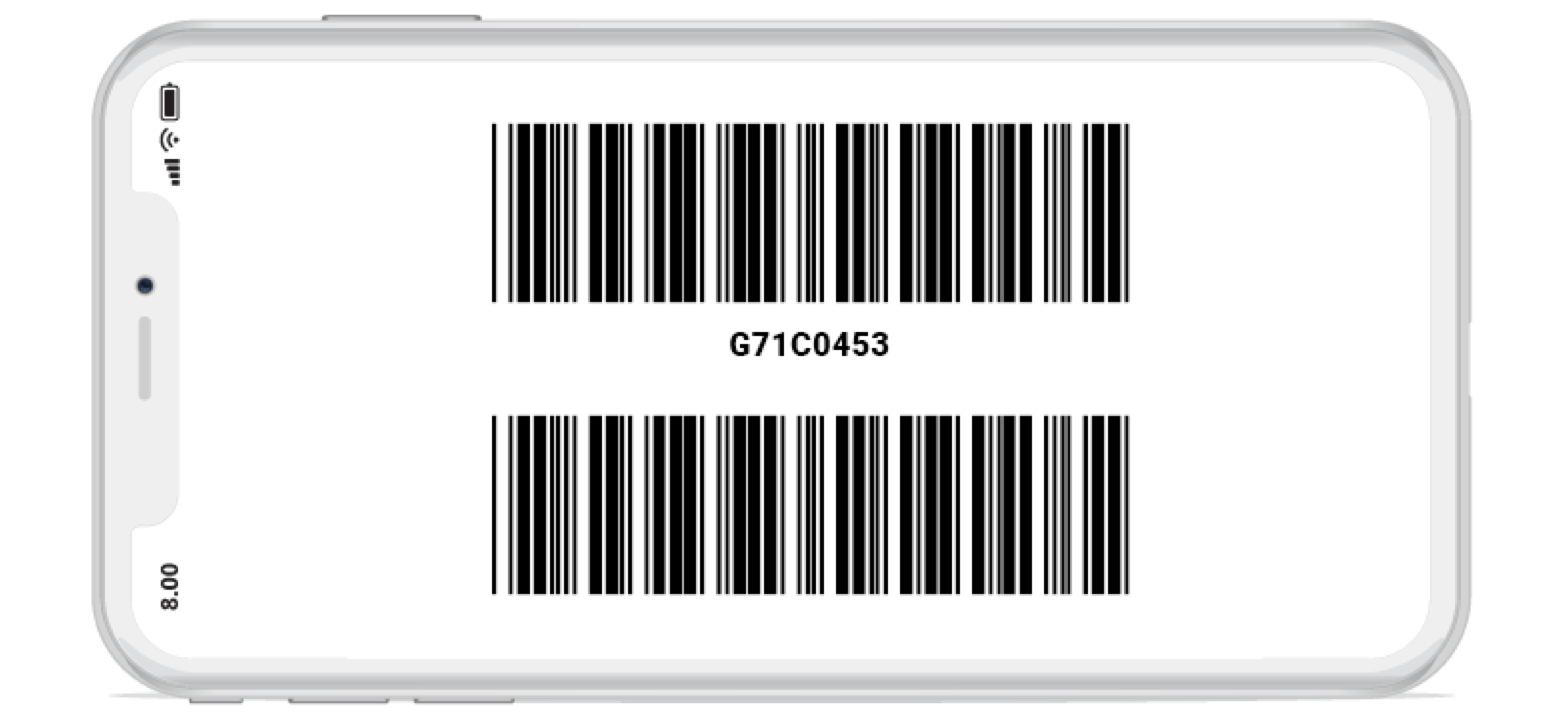
Code 39 Font Not Scanning. The code 39 font is the easiest barcode symbology to use in microsoft office. So the first thing you need to do is find out which.
The barcode reader that is used to scan the barcode must be configured to perform full ascii character translations. You need start and stop characters other than * and you need a checksum for code 128. In my software the code is good.
The Asymmetry Of The Symbol Allows The Reader To Determine The Direction Of The Barcode Being Scanned.
So if you want the barcode to read hello you must add the start and stop character which would produce *hello*. Download the configuration bar codes from below. This mapping is dependent on your font's layout.
We Have Label With Code 39, But Some Label With About 20 Characters So We Have To Print In Small Font For Code 39, So I Downloaded Free Code128 Font And Print New Label, But Barcode Scanner Not Working, If I Switch Back To Code 39 To Scan Code39 Barcode, Apps Work Properly.
There are a couple of possibilities here: The _ have changed for a space. Please advise on this what i have tried:
If You Work With Code 39 Long Enough, You'll Recognize A Code 39 Barcode A Mile Away Because Of The Symbol Associated With The Asterisks.
1) the barcode is unscannable. Enter image description herei use bar code code 39 extended to create bar code. I have a rdlc report, i generated barcode using code 39 font and i also generated barcode report.
It Doesn't Even Look Like The Bar Code That Is Printed On My Wasp Documents (Well It *Looks* Like It But The Bars Don't Match Up Quite The Same If You Know What I Mean).
It does change the font to a barcode, but it doesn't even come close to matching one that is generated online and it doesn't scan at all. The free idautomation code 39 barcode font allows the ability to encode letters, numbers and some symbols within the code 39 barcode symbology. Microsoft office code 39 barcode tutorial.
When working with code 3 of 9, the start and end of the barcode has a very distinctive look because of the asterisks on each side of the data. The * character presented below is not a true encodable character, but is the start and stop symbol for code 39. Set it to any other font type and the extra bars will.